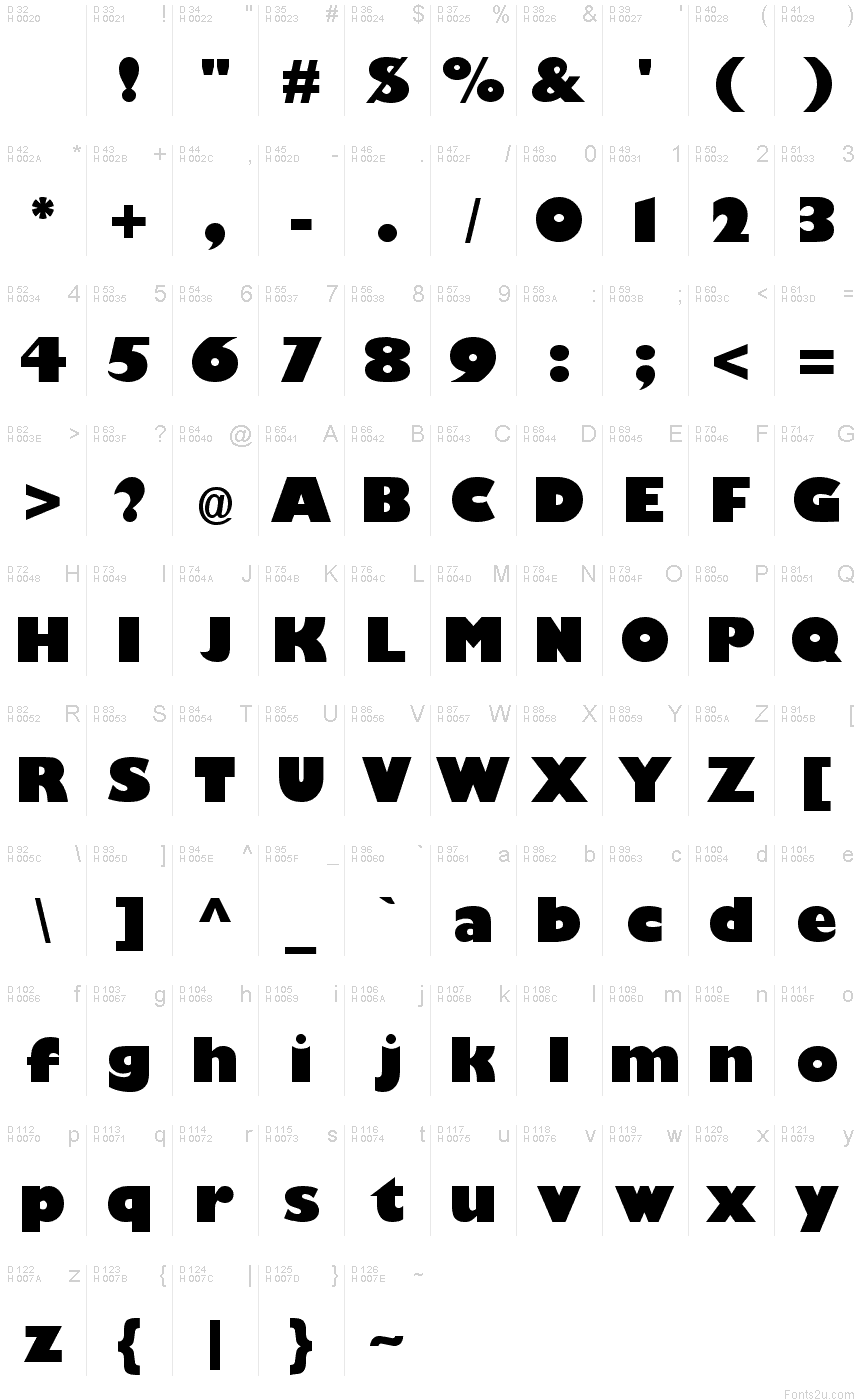
Trumania EEN Plain
Trumania EEN
Plain
Trumania EEN by Aesthetix Font Company (font ID #00006) created December 21, 2000
Trumania EEN was created in December, 2000 by Aesthetix Graphic Design exclusively for Famous Fonts (www.eliteentertainment.net/famousfonts). It is based on the typeface used on the title of the Jim Carey film "The Truman Show". As far as we could tell, a freeware version of this font was not available, so we made one. This is NOT a pirated or renamed font. True, it may look just like another or several other fonts out there (and may even have the same character set), but it is an original.
The name Trumania EEN comes from the film itself, the scene where Truman is drawing on the mirror and claims the planet for his homeland, Trumania.